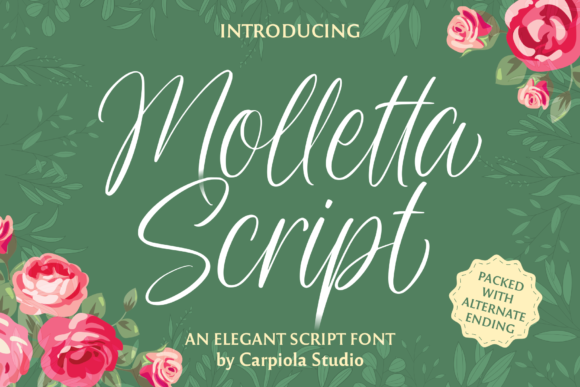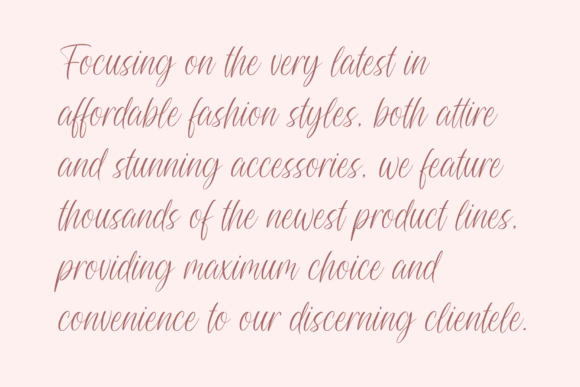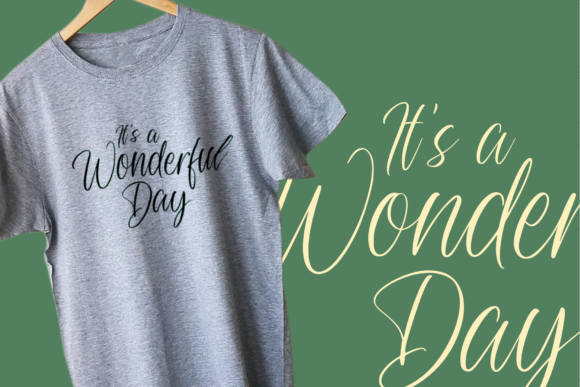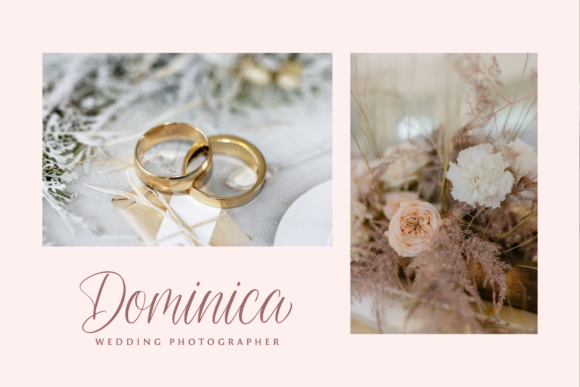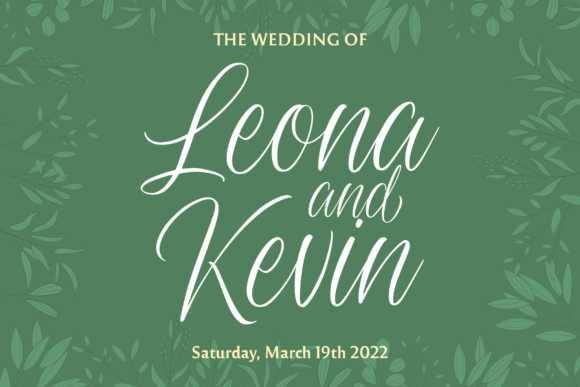
Molleta Script Font
About Molleta Script Font
Molleta Script is an elegant timeless handwritten font. It is the best choice for creating attractive logos, branding, clothing designs and quotes. Each letter adds a unique and beautiful touch to your design, bringing it to life with a classy, elegant look and more flattering. This font is PUA encoded, which means you can access all of the glyphs and swashes with ease!